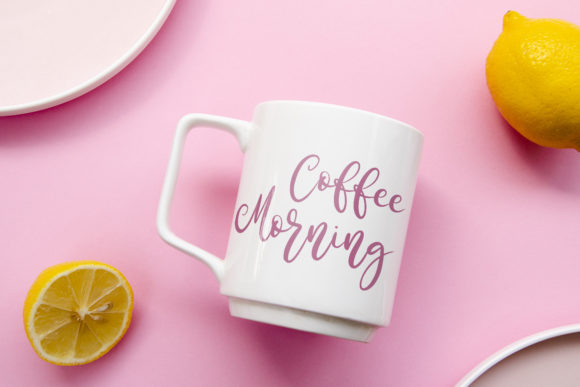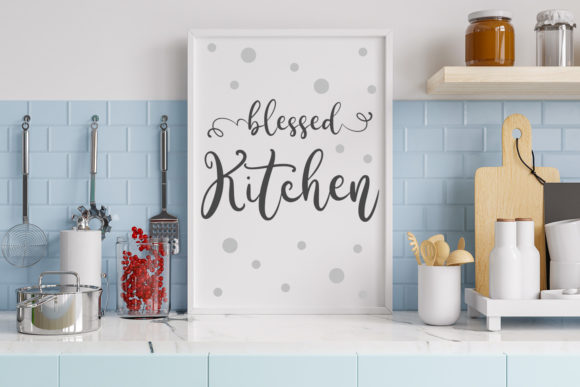
Miracle Farmhouse Font
db-ku.com - Script & Handwritten -- Miracle Farmhouse feels equally charming and elegant. It looks stunning on wedding invitations, thank you cards, quotes, greeting cards, logos, business cards and every other design which needs a handwritten touch.